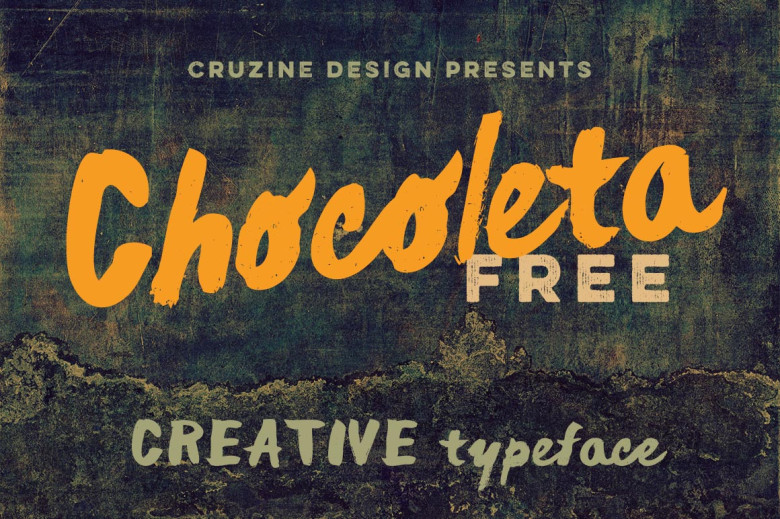
Chocoleta Brush Font
This creative & grunge style brush font is from Cruzine Design. Great for your new creative projects. Download and enjoy data-lazy-src="https://s.w.org/images/core/emoji/12.0.0-1/svg/1f609.svg"